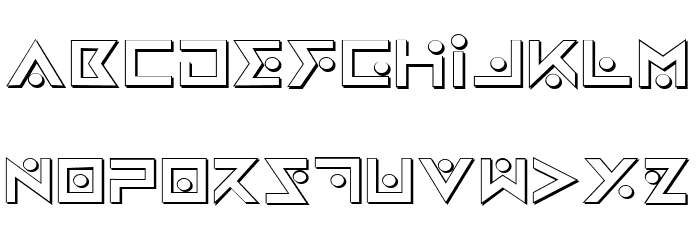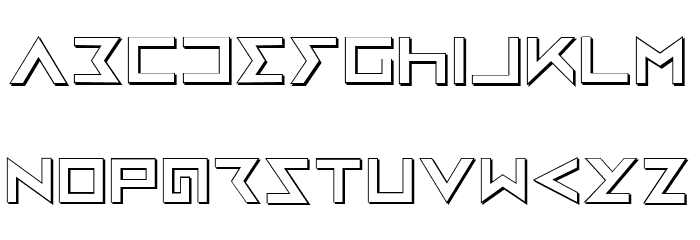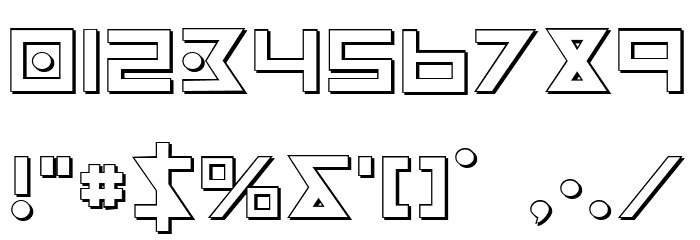
Iron Cobra 3D Font
This font features a bold, geometric design with a futuristic and industrial aesthetic. The characters are composed of sharp angles and straight lines, often incorporating circular elements that add a unique, mechanical touch. The uppercase and lowercase letters maintain a consistent style, emphasizing symmetry and precision. The numbers and special characters follow the same design principles, ensuring a cohesive look across all glyphs. The font's outline style gives it a three-dimensional appearance, making it stand out in any design. Its distinct and modern look is ideal for projects that require a strong visual impact.
A bold, geometric font with a futuristic, industrial style and three-dimensional outline.
- Proposed Projects: Ideal for sci-fi themed designs, video game titles, technology branding, and futuristic posters.
- Overall Style: Futuristic, Industrial